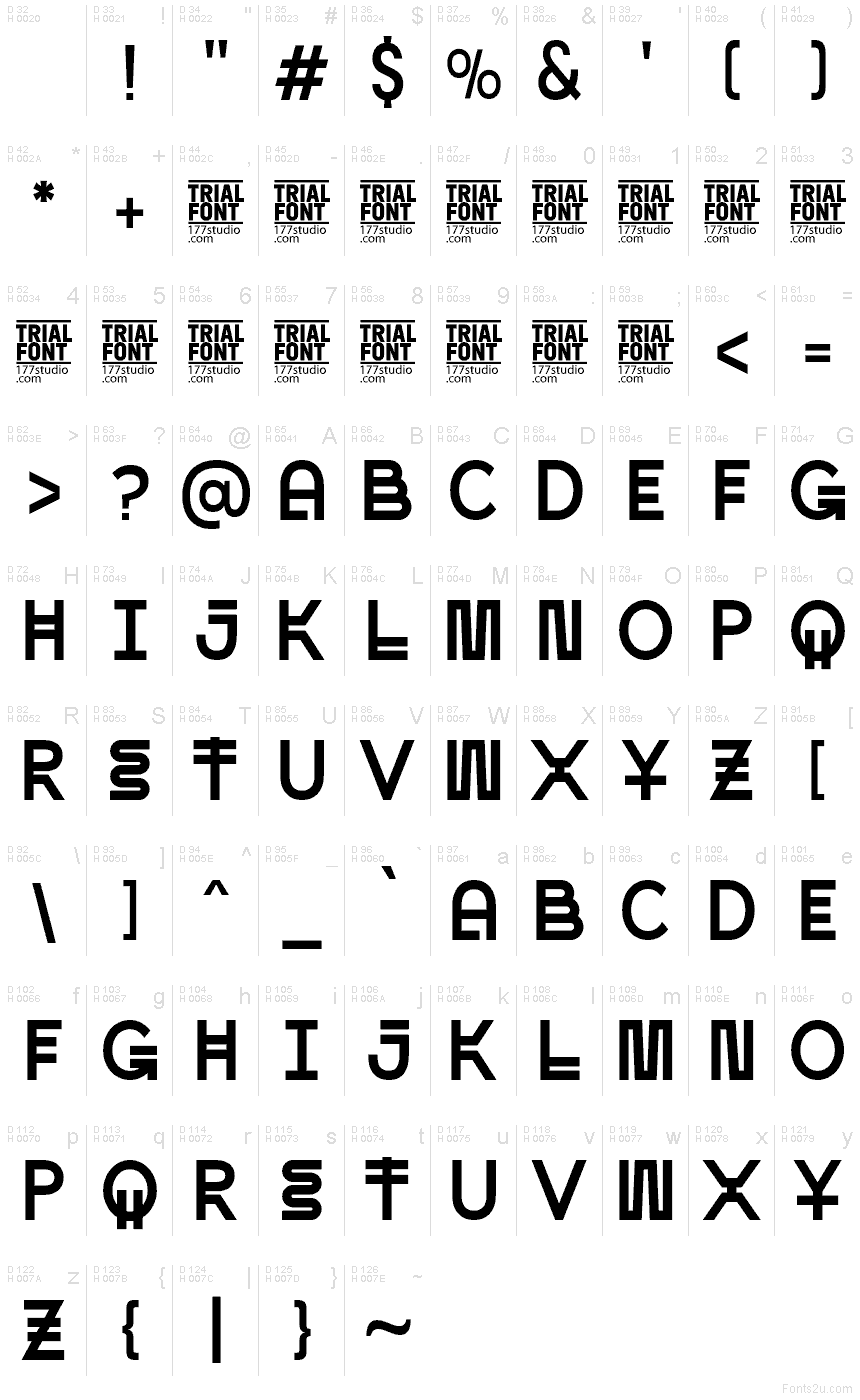
Essential Equations Demo Bold
Essential Equations Bold font by 177Studio is a free futuristic display typeface with a strong, lab-built personality. Part of the Essential Equations family, it stacks tall, condensed letters into a tight grid, with squared curves and straight, uniform strokes that feel engineered rather than drawn. The result is a crisp, techy texture that reads like circuitry or a math diagram turned into letterforms.
Using Essential Equations Bold, headlines instantly signal science, technology, and innovation. This free font shines on STEM event posters, science-fair banners, educational YouTube thumbnails, coding bootcamp branding, tech podcast covers, and app splash screens. Set it large to show off the geometric rhythm, and pair it with a simple, open sans-serif for body copy to keep the message clear and readable.